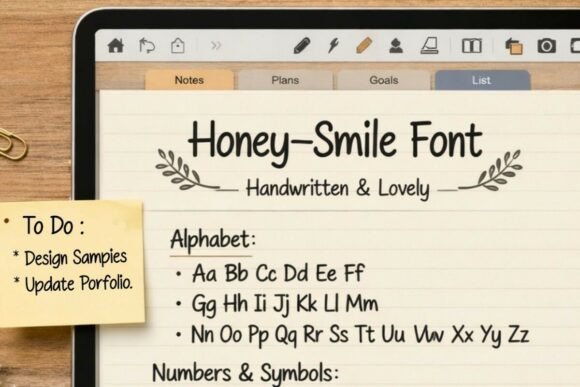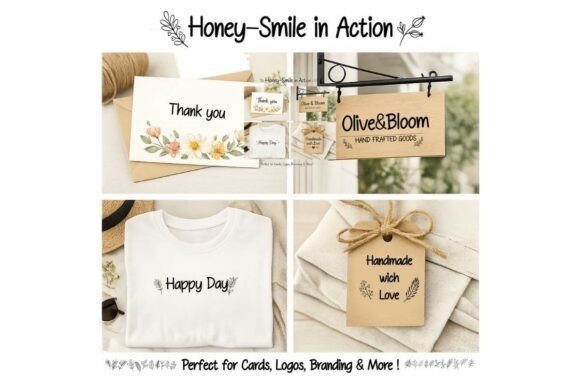
Introduction to Honey–smile Font
Have you ever been in the midst of a creative project, only to be struck by the perfect combination of colors, textures, and typography? For many designers, this moment of inspiration is a fleeting one – until they stumble upon the perfect design resource. Welcome to the world of Honey–smile Font, a charming handwritten display font and botanical illustration bundle that brings a warm, organic feel to your digital canvas.
Whether you’re a seasoned designer or just starting out, Honey–smile Font is a valuable asset that can elevate your creative projects to the next level. With its high-quality, hand-drawn illustrations and delicate line art, this design resource is perfect for a wide range of applications, from cozy lifestyle blogging imagery to custom vinyl crafting projects.
Key Features of Honey–smile Font
- Unique, hand-drawn style with a mix of playful and elegant elements, ideal for projects that require a touch of whimsy.
Honest Review: Honey–smile Font
What works well about the Honey–smile Font is its high quality and playful feel. The font is perfect for creative projects that require a touch of whimsy and fun. It’s also great for designers looking for a unique design resource to add some personality to their work.
- High quality design
- Unique design resource
While the Honey–smile Font is a great addition to any design library, it does have some limitations. The font may not be suitable for professional or formal projects, and it may not be the best choice for projects that require a more serious or traditional tone.
Overall, I think the Honey–smile Font is a great resource for designers looking to add some creativity and personality to their work. Just be sure to use it in the right context!
Tips for Getting the Most Out of Honey–smile Font
To get the most out of the Honey–smile Font, use it on a transparent background to create a clean and minimalist design. Experiment with different font sizes and colors to find the perfect combination for your creative project.
The Honey–smile Font is ideal for various design projects, including social media graphics, blog posts, and marketing materials. Its high-quality design makes it perfect for creating eye-catching and engaging content.